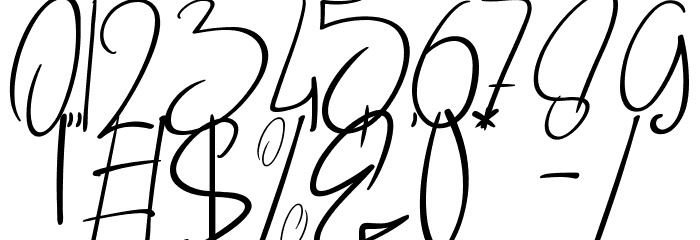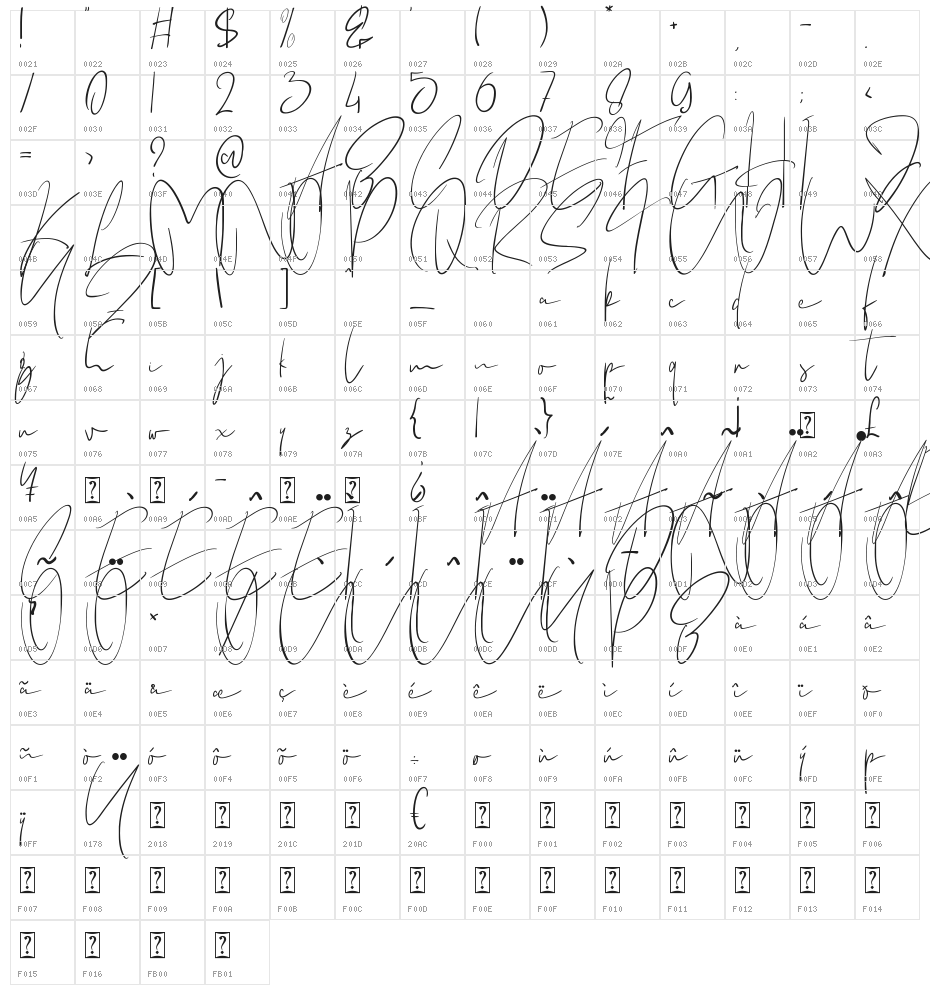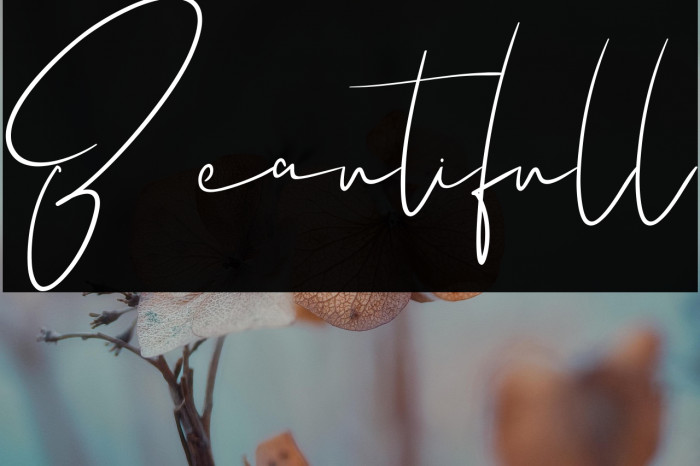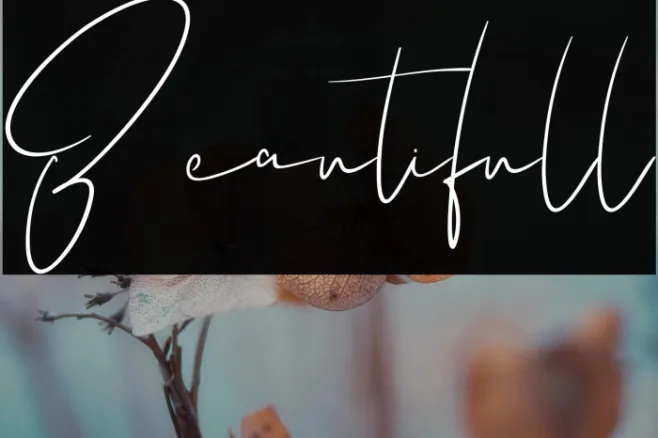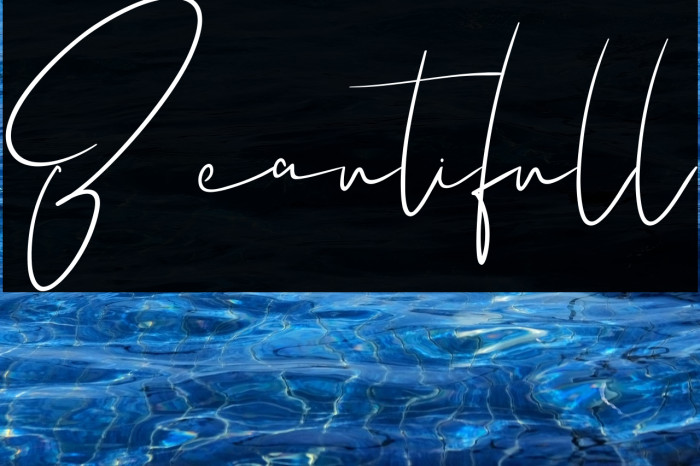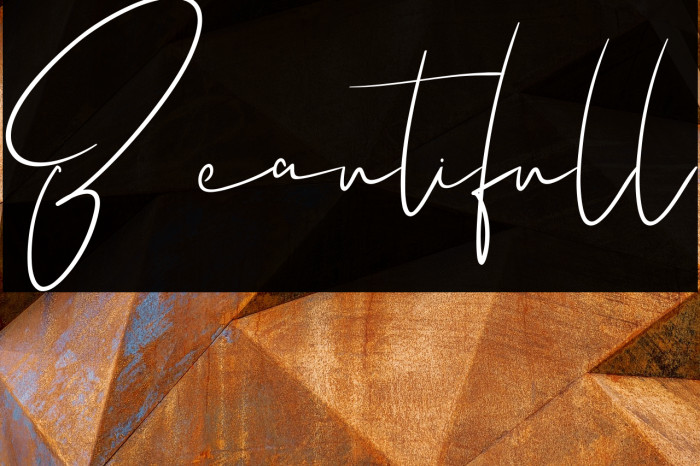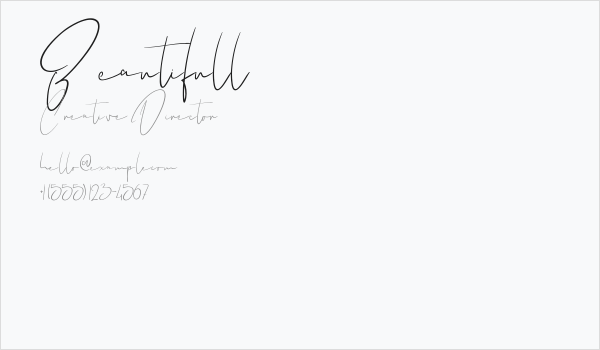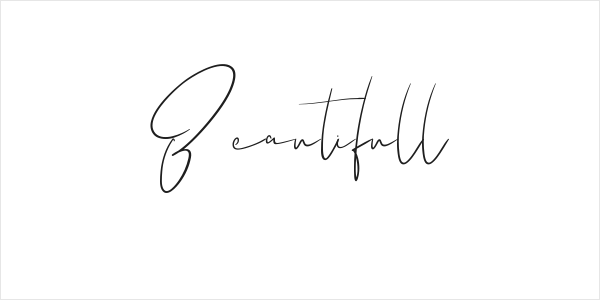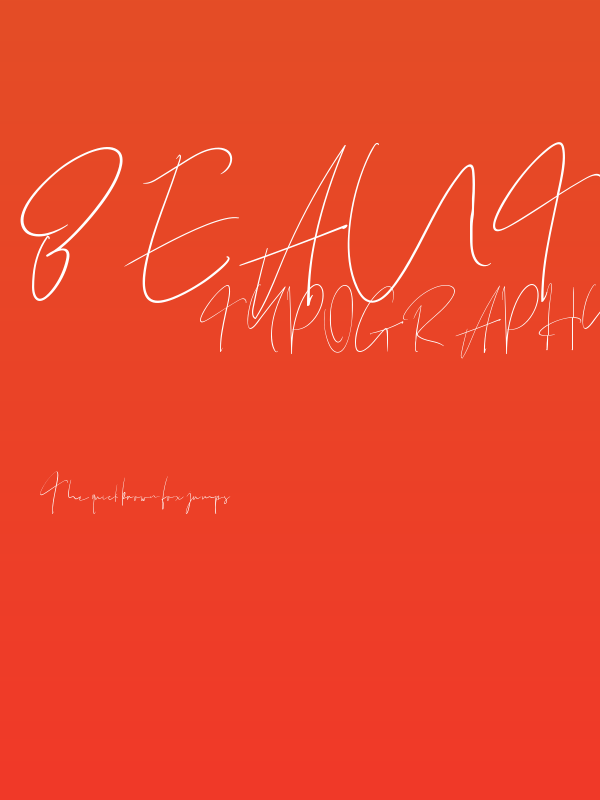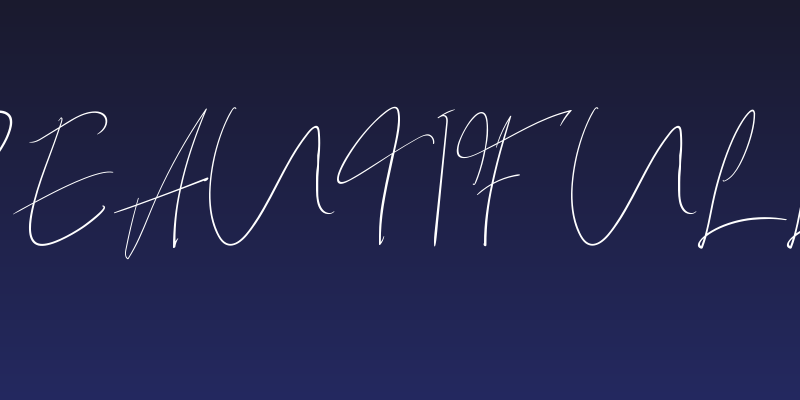
Beautifull Font
Beautifull Description
This font exudes a dynamic and expressive style, characterized by its fluid, cursive script that mimics natural handwriting. The letters are interconnected with sweeping strokes, giving it a sense of movement and elegance. The uppercase letters maintain a consistent height, while the lowercase letters vary in size, adding to the organic feel. The numbers and special characters follow the same flowing style, ensuring a cohesive look across all elements. This font is ideal for projects that require a personal touch, such as invitations, greeting cards, or branding materials that aim to convey creativity and sophistication.
| Proposed Projects | Ideal for invitations, greeting cards, personal branding, and creative projects. |